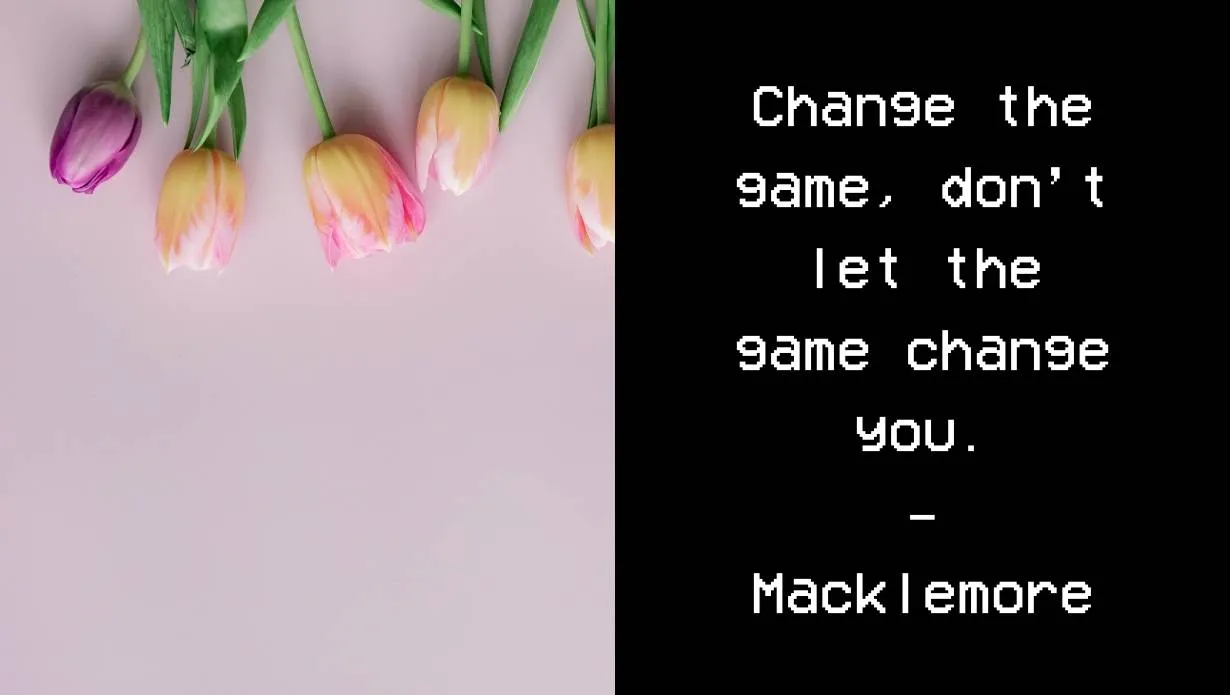
VHS Font is a very famous typeface that was designed for different logos. This gorgeous typeface was designed by Riciery Leal. It belongs to the display font family. It is the perfect choice for headlines, logos, posters, and more. VHS is the abbreviation of Video Home System.
This stunning Font has two different styles, Regular and Bold. Each style contains uppercase, lowercase, numerals, and punctuation marks.
VHS Font Family
| Name | VHS Font |
| Designer | Riciery Leal |